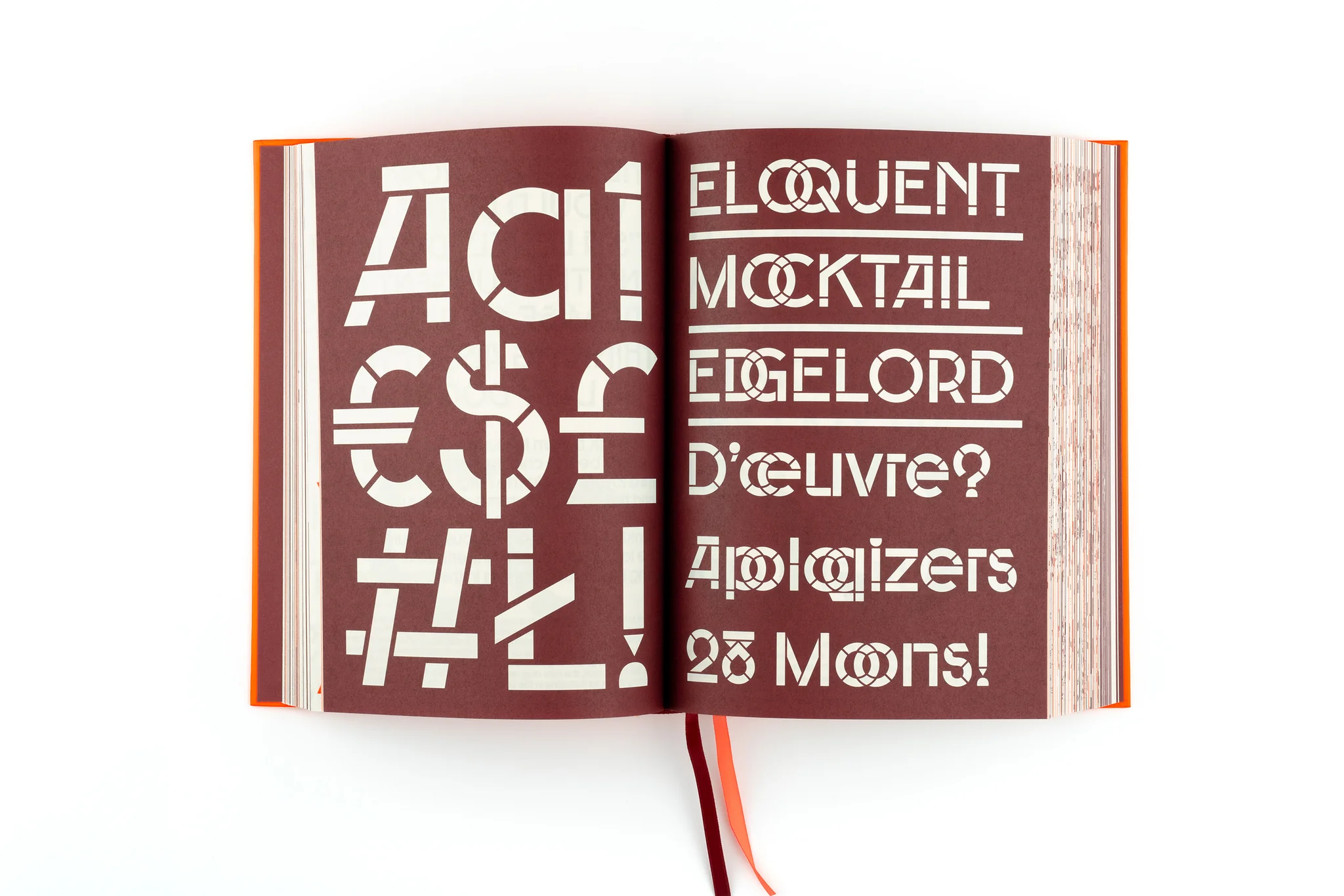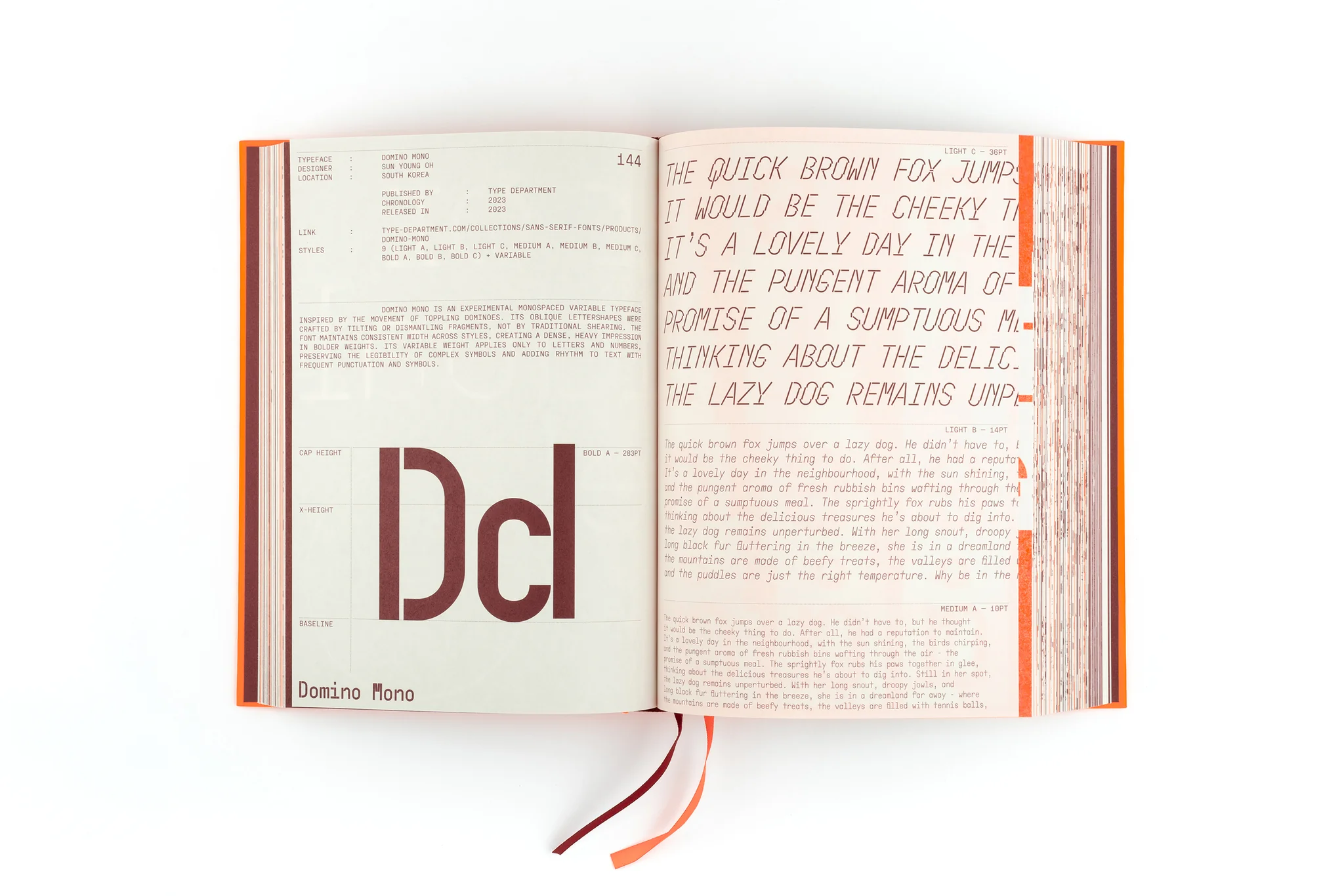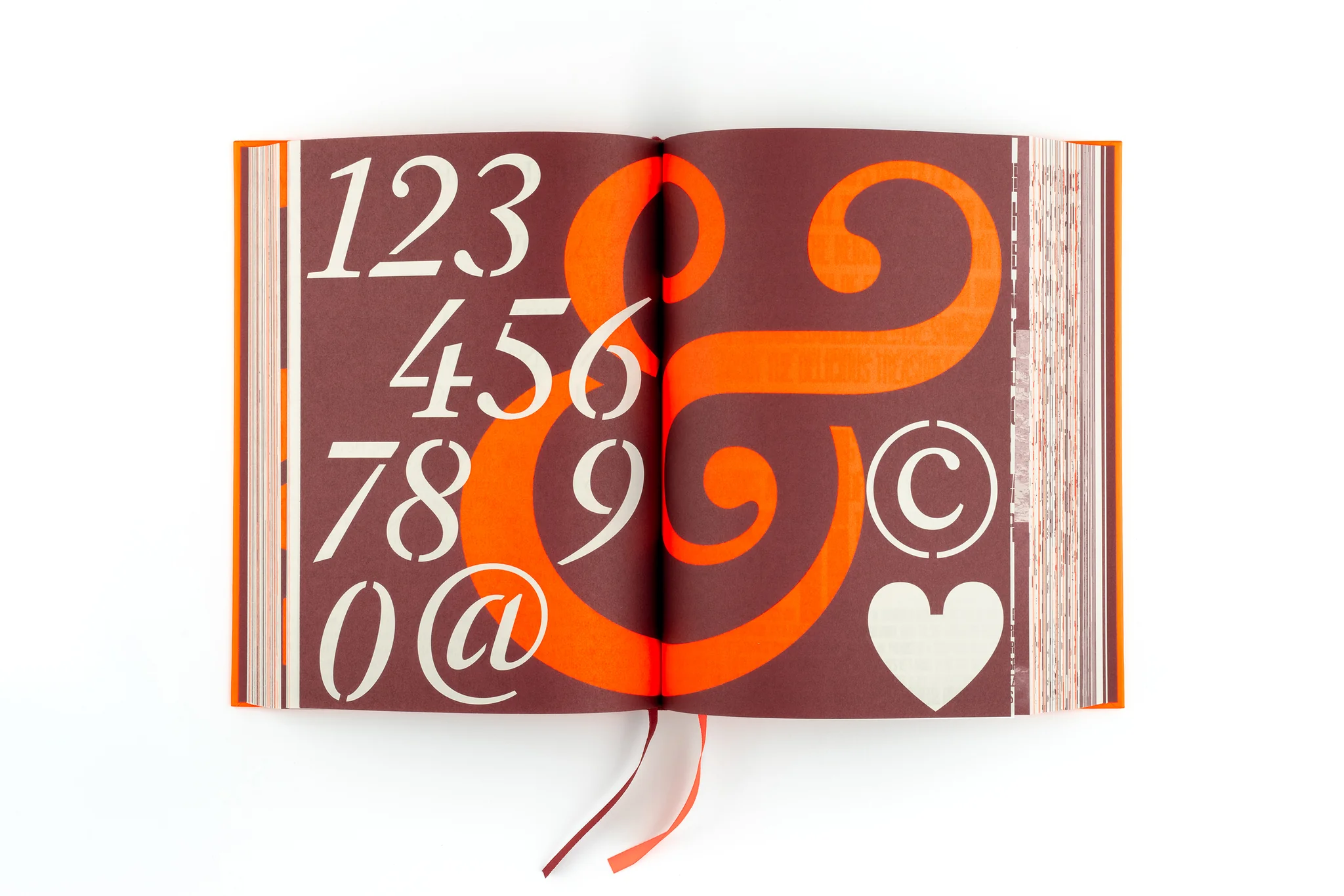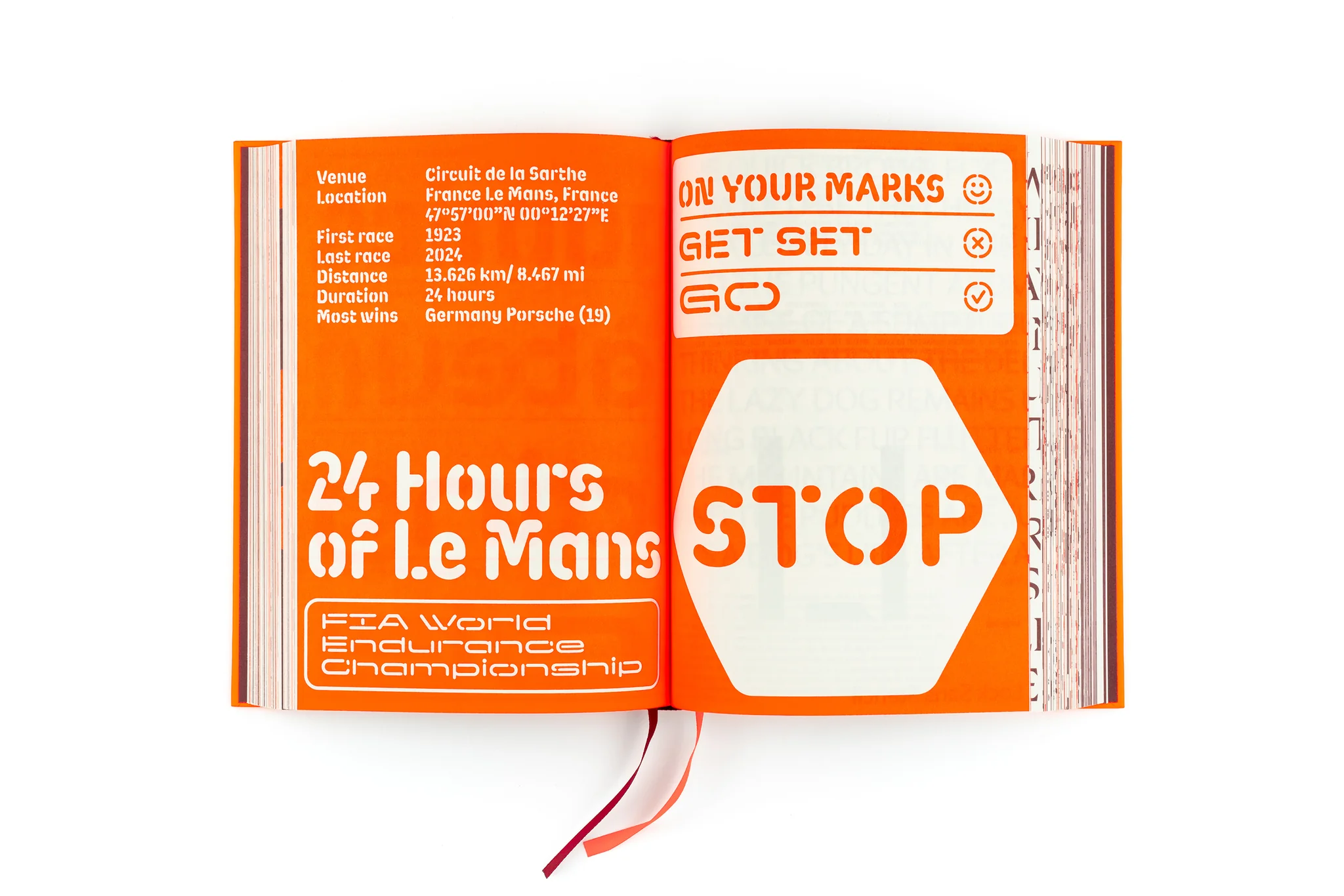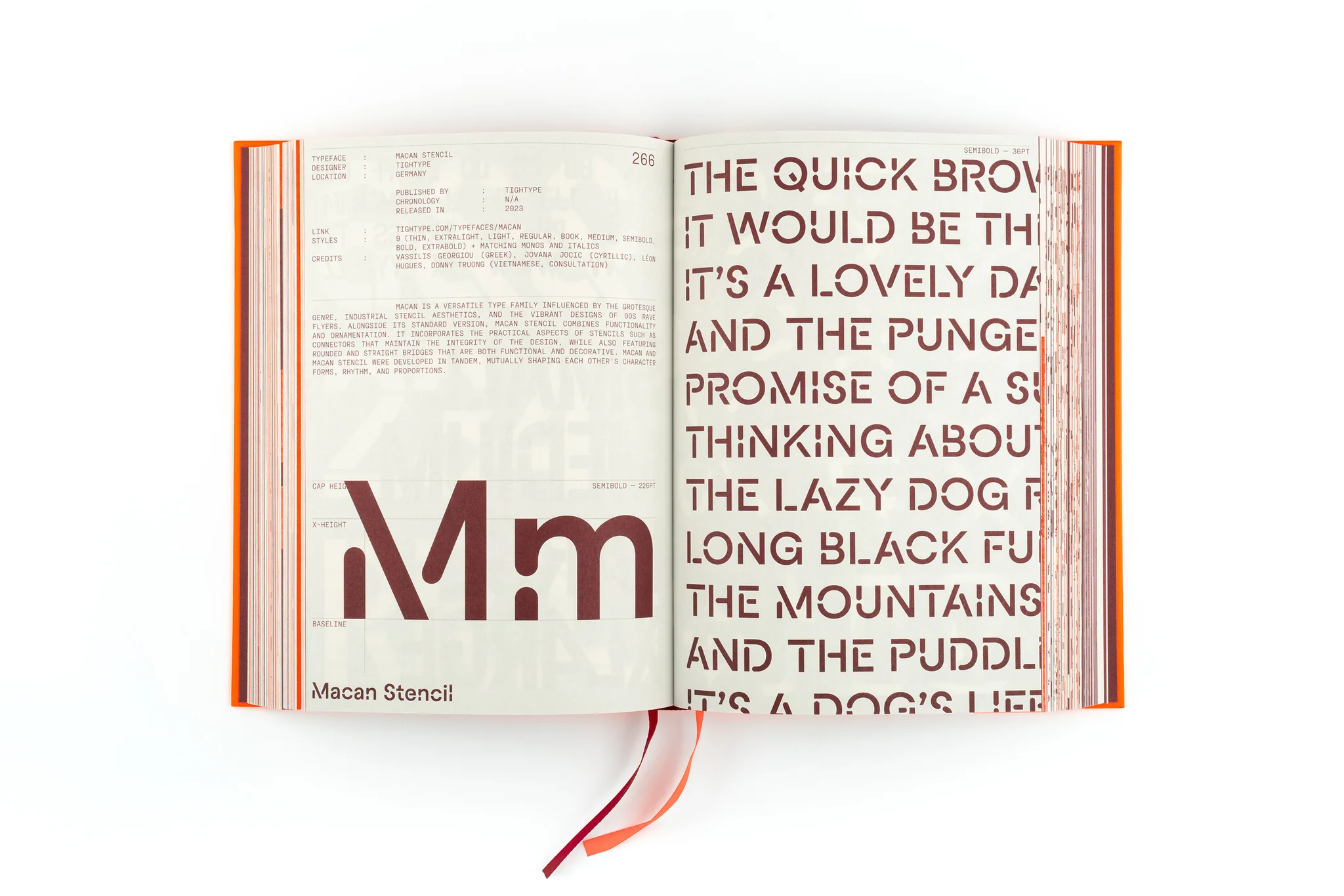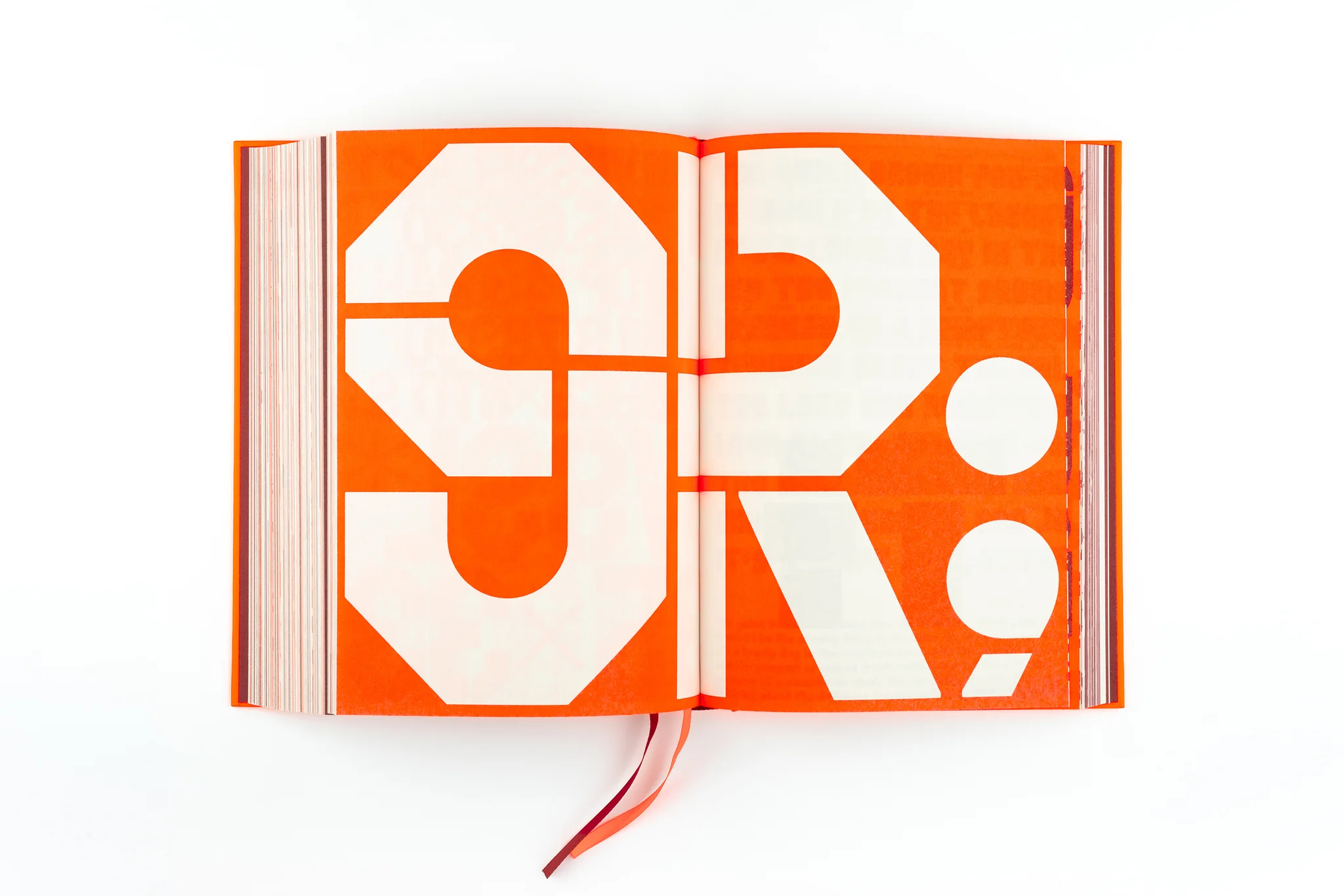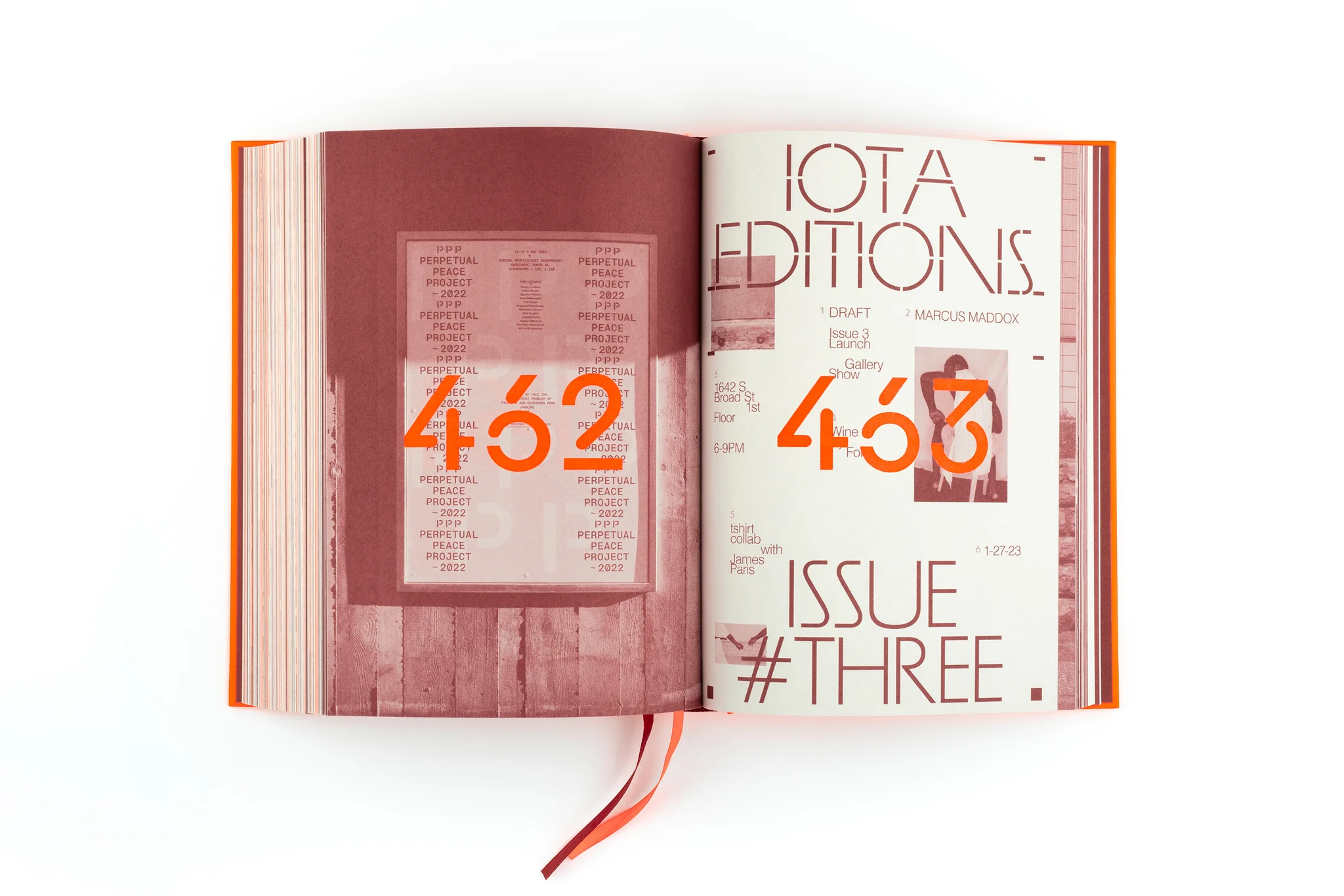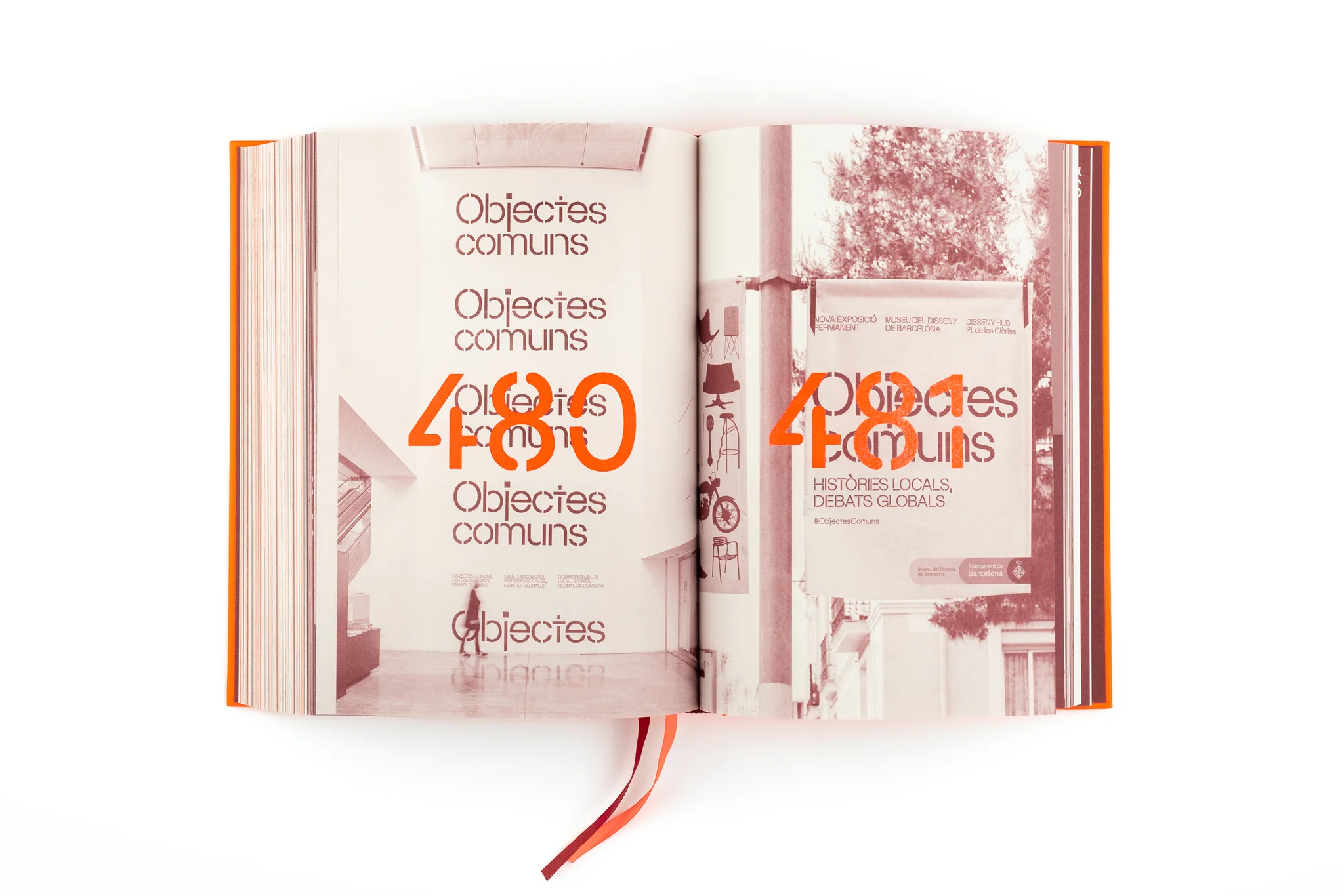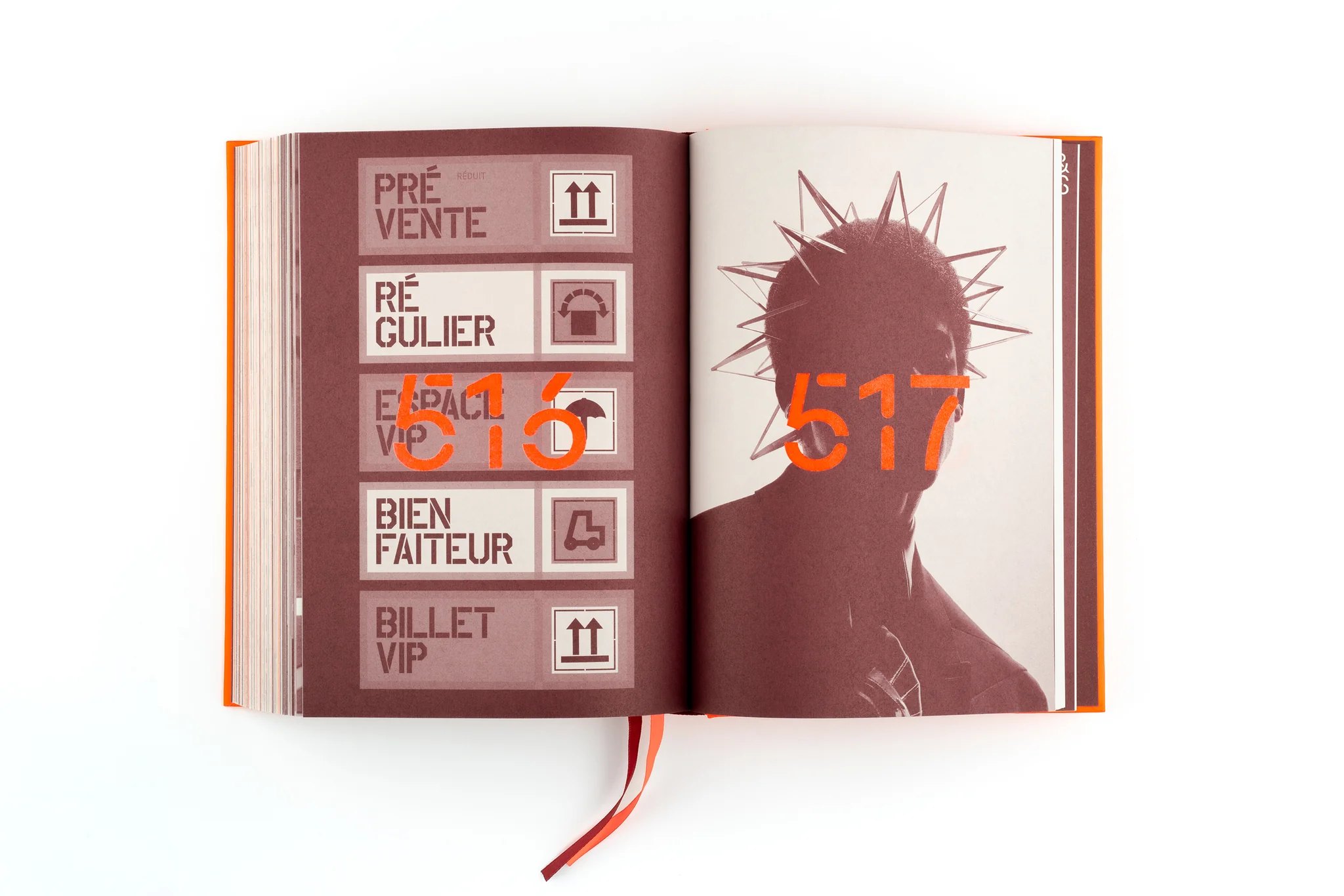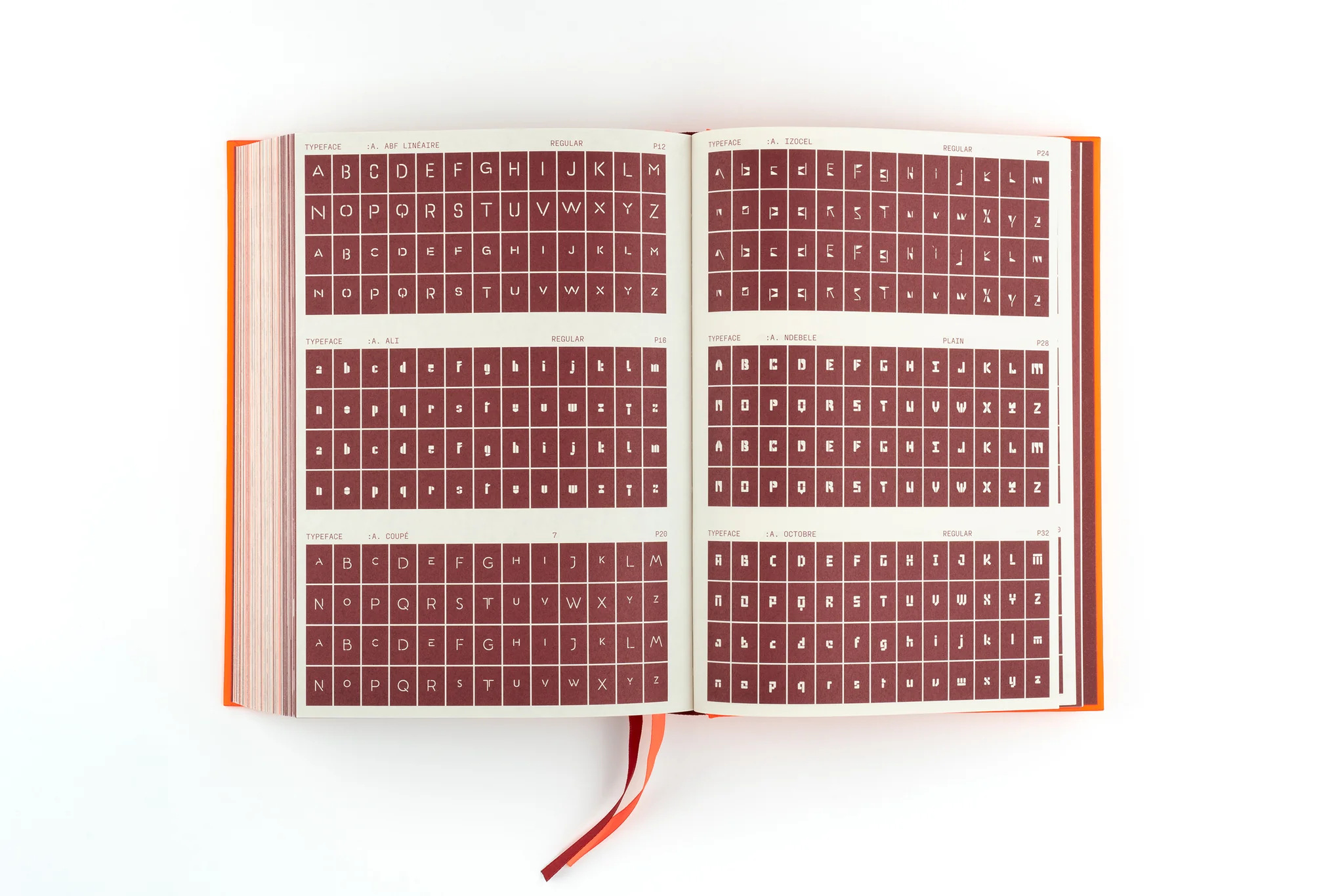
Stencil In Use— A Collection of Stencil Typefaces
Stencil In Use: A Collection of Stencil Typefaces — A Curated Showcase of Stencil Font Design and Application
Stencil fonts are known for their bold, highly recognizable cuts and openings—often evoking industrial aesthetics, military markings, or spray-painted shipping crates. However, these typefaces have long transcended their purely functional roots to become expressive tools in modern typography. Through thoughtful use of spacing, scale, and layout, stencil typefaces convey visual impact and geometric precision, offering a sense of strength and contemporary style.
As an extension of the Sans/Sans Serif In Use series, this volume focuses exclusively on stencil typography, featuring a curated collection of type specimens and real-world design applications. With examples drawn from around the world, the book provides rich visual inspiration and insight into the design thinking behind each project. Whether used in large-scale graphics, brand identities, packaging, or poster layouts, Stencil In Use is an essential resource and inspiration for designers and type enthusiasts alike.